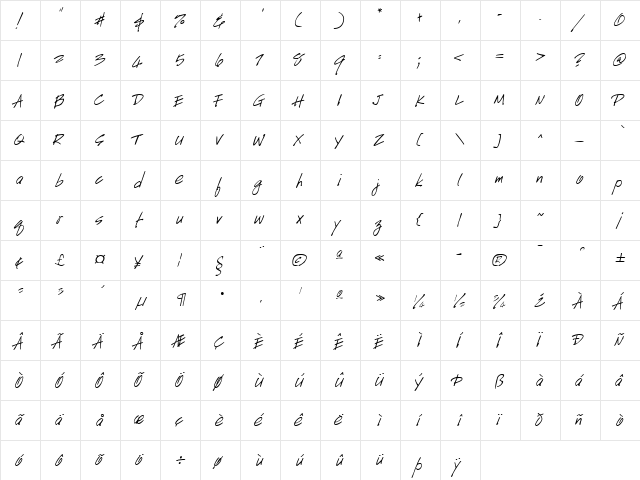
GE HandyScript Regular
Design Context for GE HandyScript Typeface
GE HandyScript flows with the natural rhythm of handwritten lettering, making it ideal for designs that call for warmth and personal expression.
Font Pairing: Combine GE HandyScript with a simple geometric sans for maximum contrast — the tension between flowing curves and clean structure is a classic typographic pairing.
Pro Tip: Pair GE HandyScript with a clean sans-serif for supporting text. The contrast between fluid script and geometric structure creates an elegant typographic hierarchy.